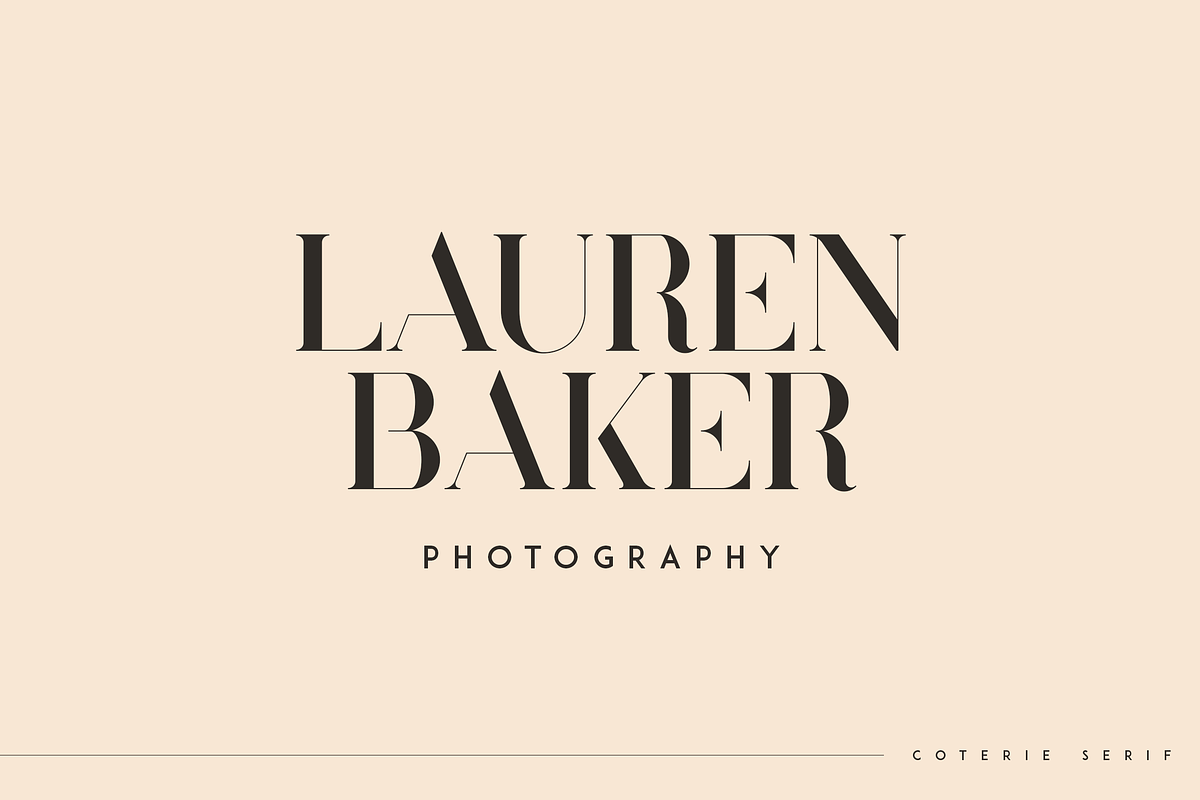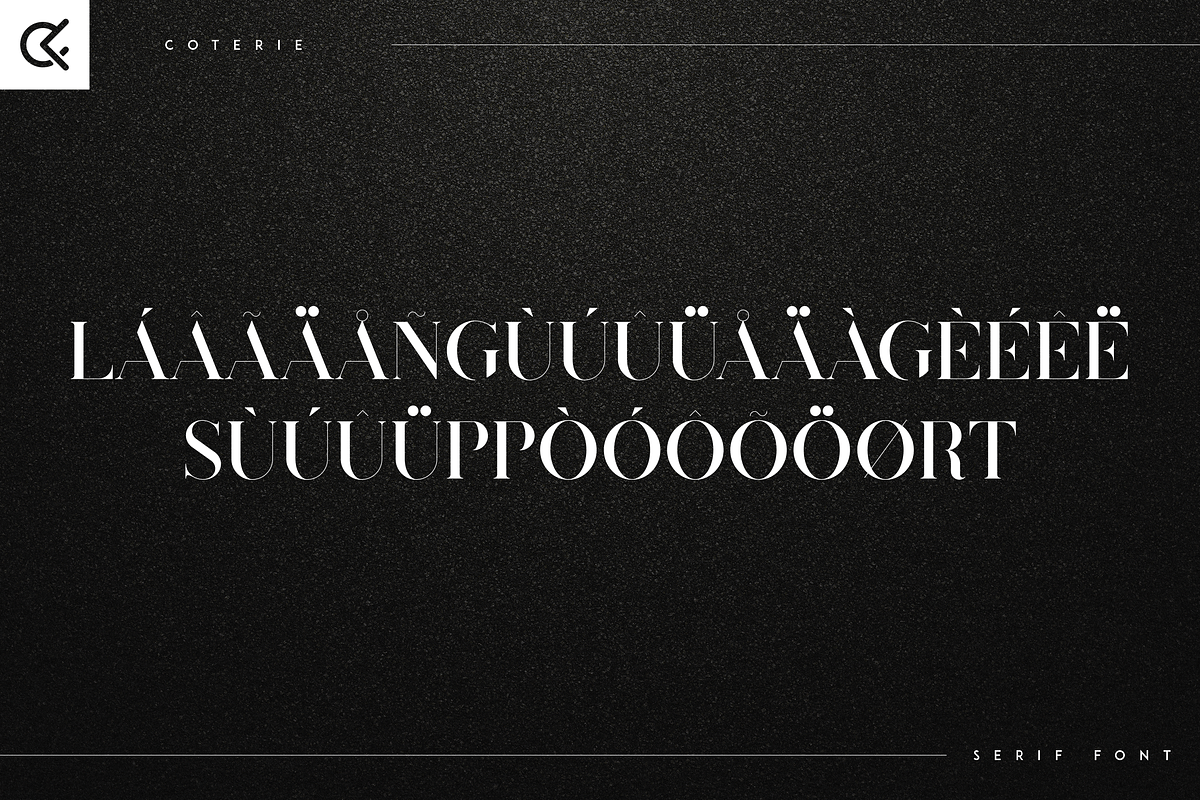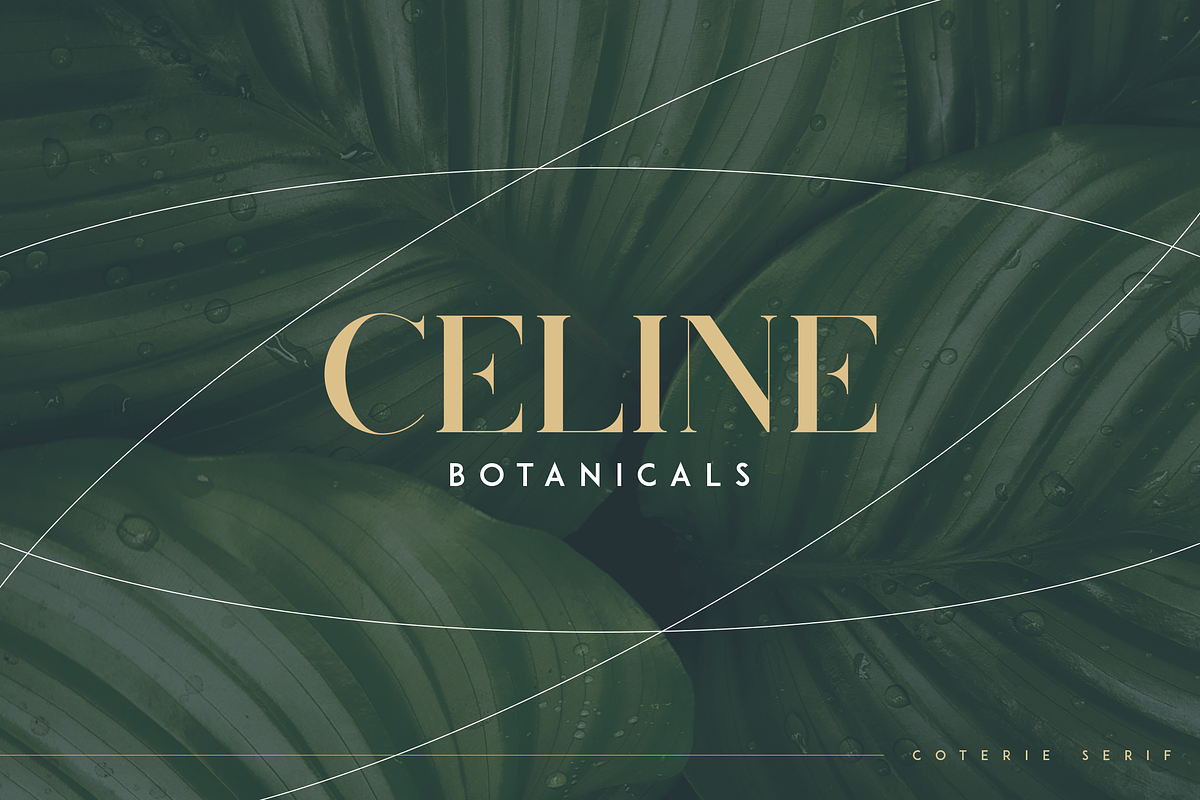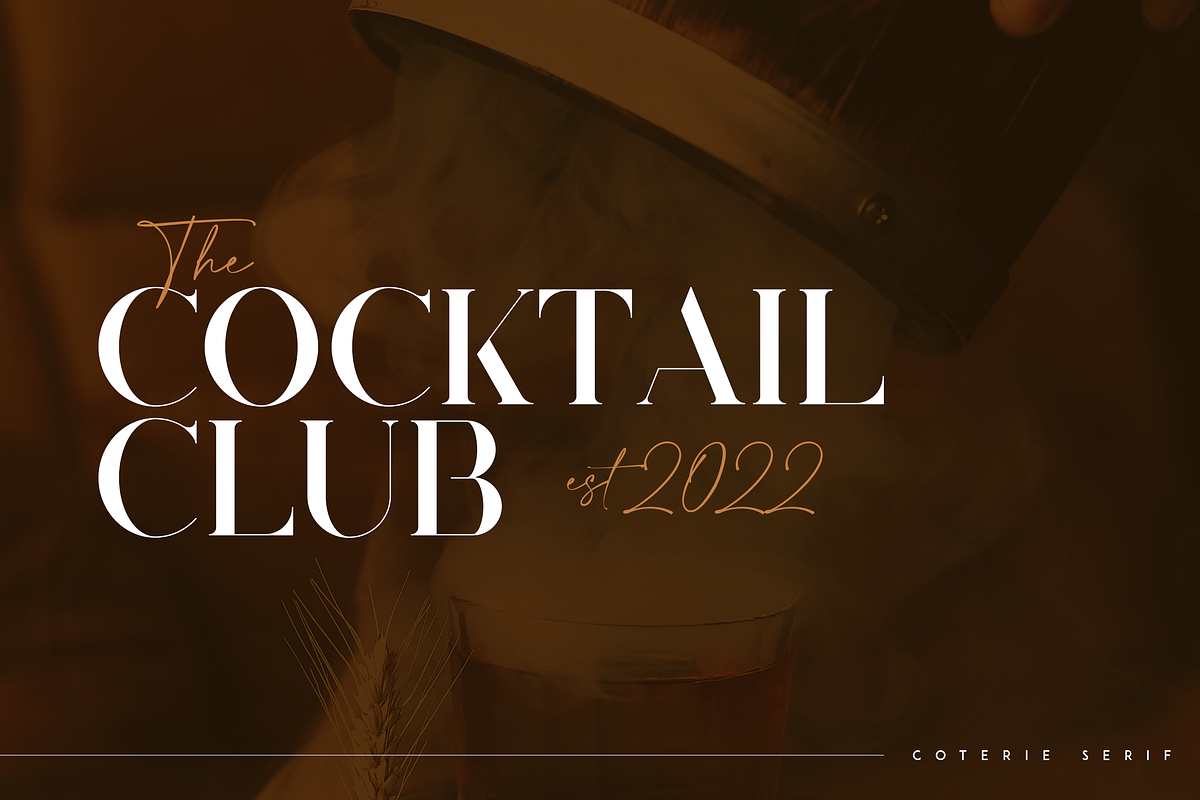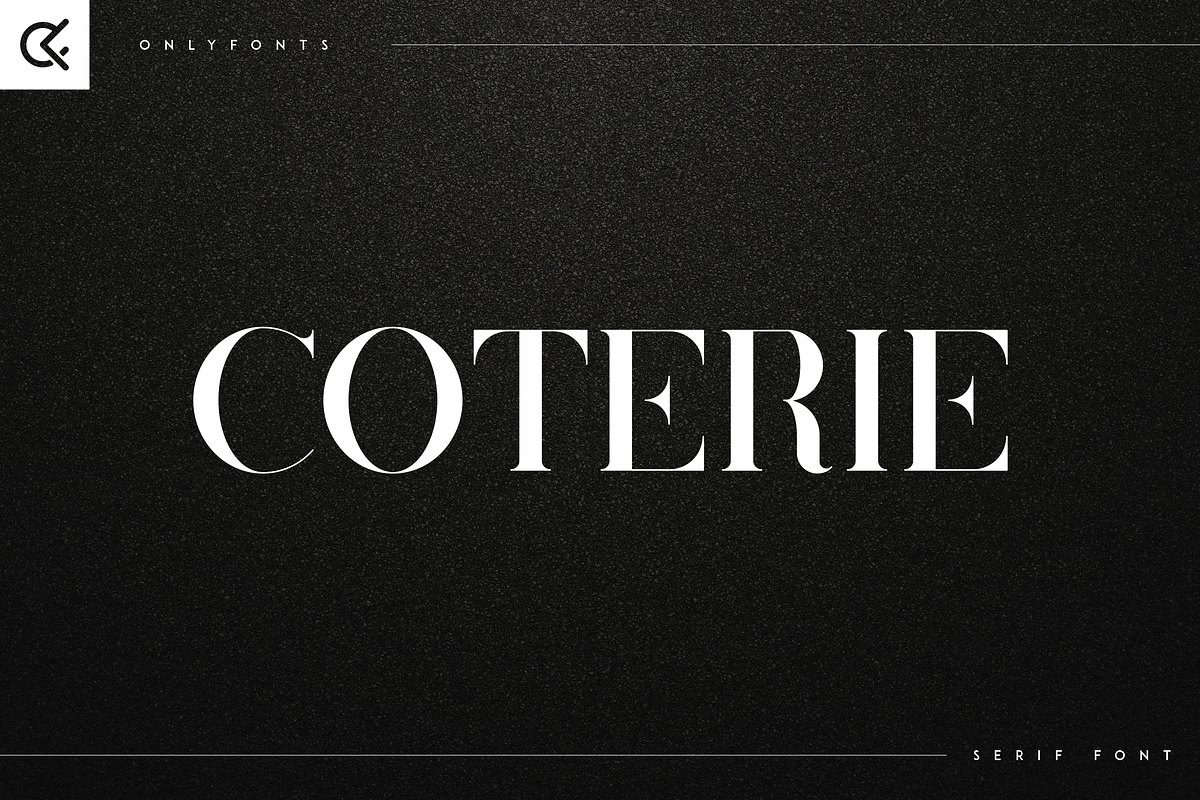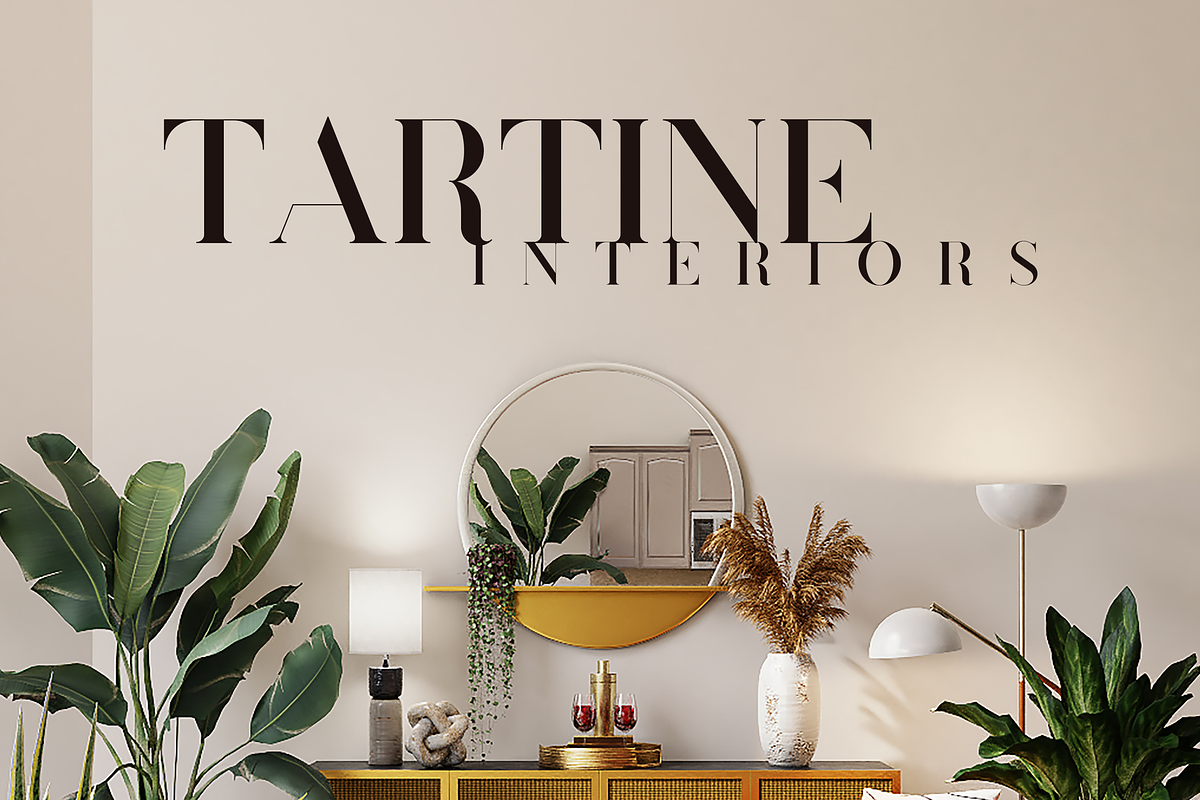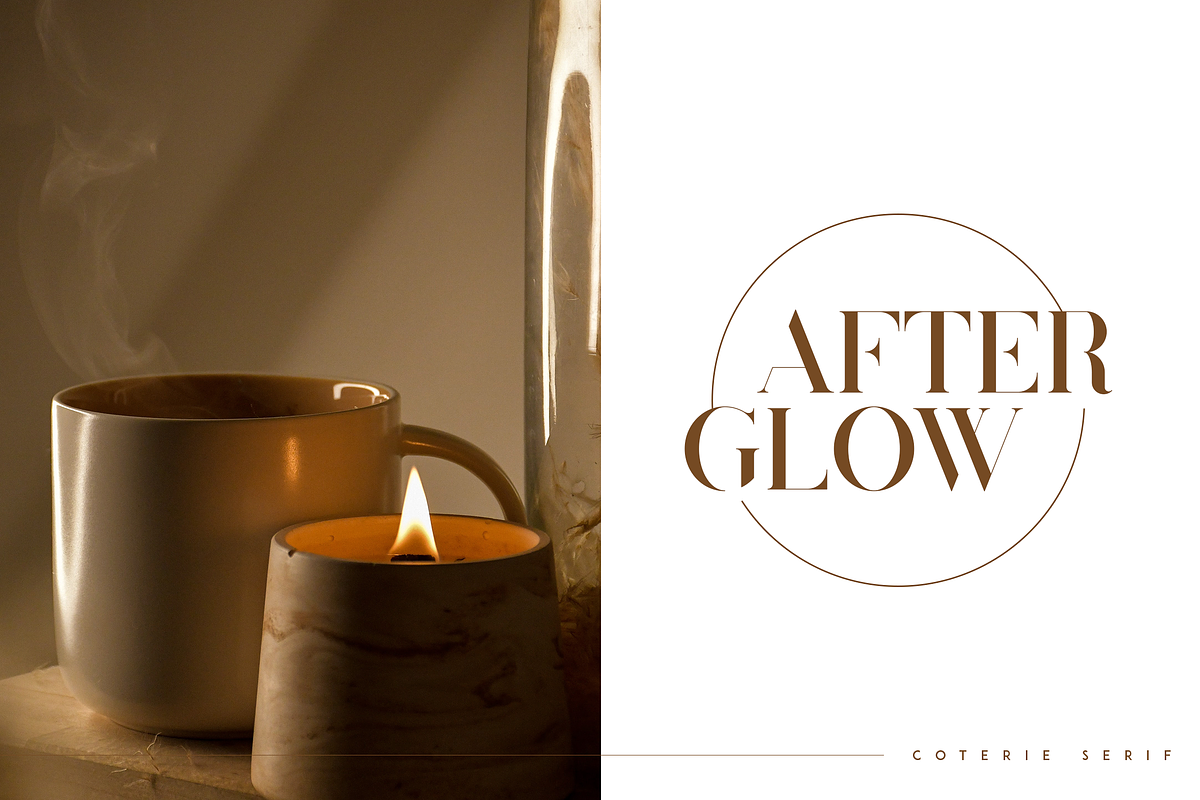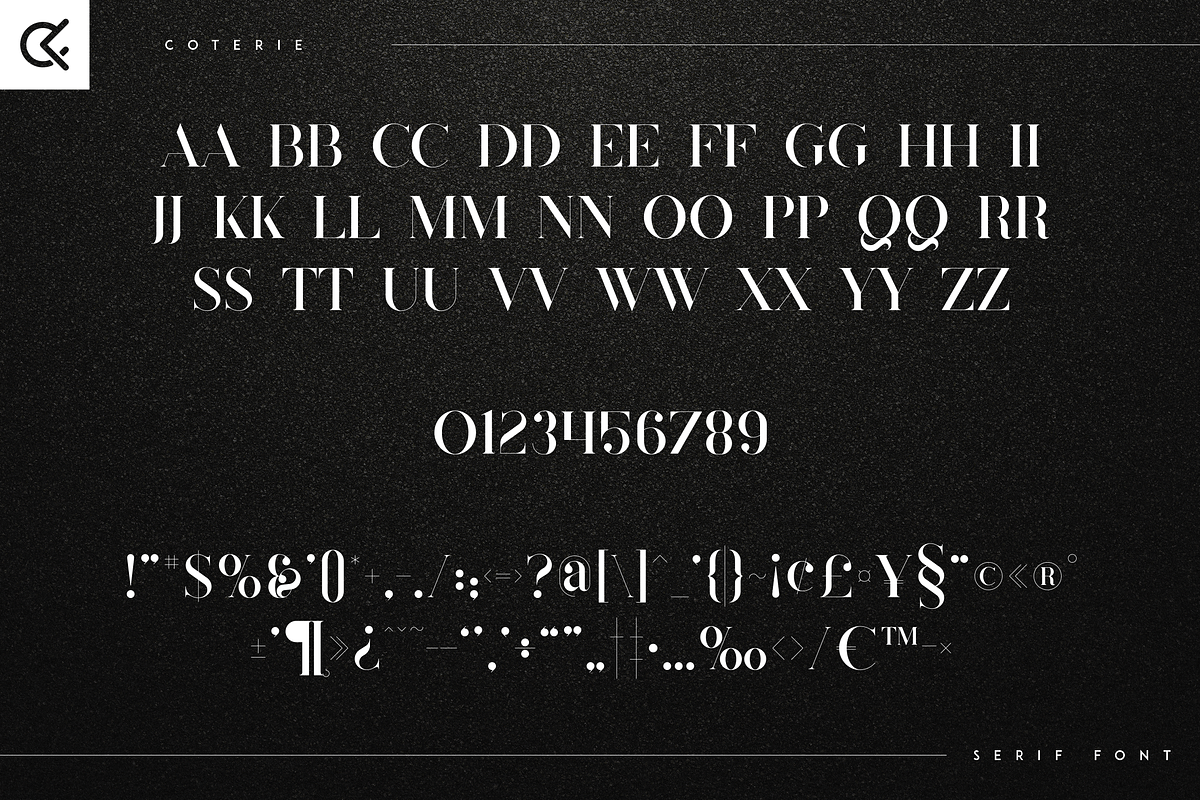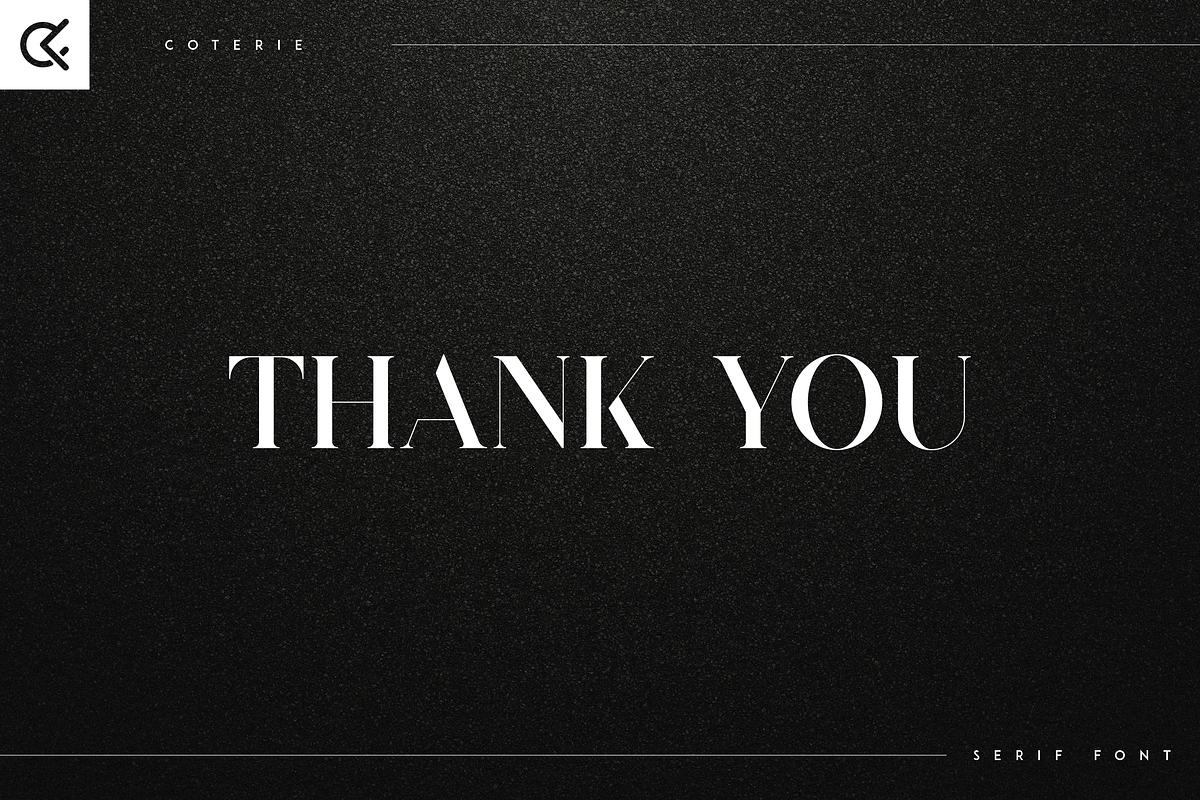
Coterie - Elegant Serif font
Introducing Coterie - Elegant Serif font
Coterie is elegant and fragile font with multilingual support. It's a very versatile font that works great in large and small sizes.
Coterie is perfect for branding projects, home-ware designs, product packaging, magazine headers - or simply as a stylish text overlay to any background image.
- Uppercase, numeral, punctuation & Symbol